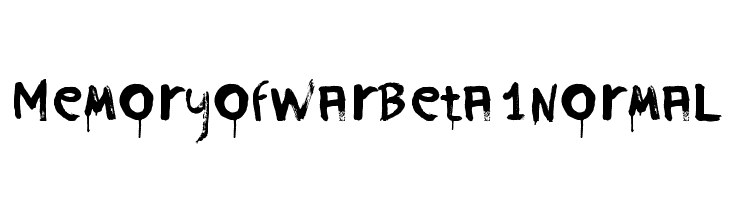
( Daniel Plant - www.fontmonster.org )
A bold, playful font with rounded, bubbly characters.
( Daniel Plant - www.fontmonster.org )
A bold, hand-drawn font with a brush-like texture and dynamic style.
( Daniel Plant - www.fontmonster.org )
A playful, bold handwritten font with a lively and dynamic style.
( Daniel Plant - www.fontmonster.org )
A modern, geometric font with sharp angles and high contrast.
( Daniel Plant - www.fontmonster.org )
A decorative and abstract font with geometric shapes and patterns.
( Daniel Plant - www.fontmonster.org )
A bold, playful font with a double-layered effect and rounded strokes.
( Daniel Plant - www.fontmonster.org )
An abstract and artistic font with bold, irregular characters.
( Daniel Plant - www.fontmonster.org )
A decorative font with a crinkled, wavy appearance for artistic projects.
( Daniel Plant - www.fontmonster.org )
An abstract, artistic font with complex geometric and organic letterforms.
( Daniel Plant - www.fontmonster.org )
A bold, slab serif font with high contrast and vintage appeal.